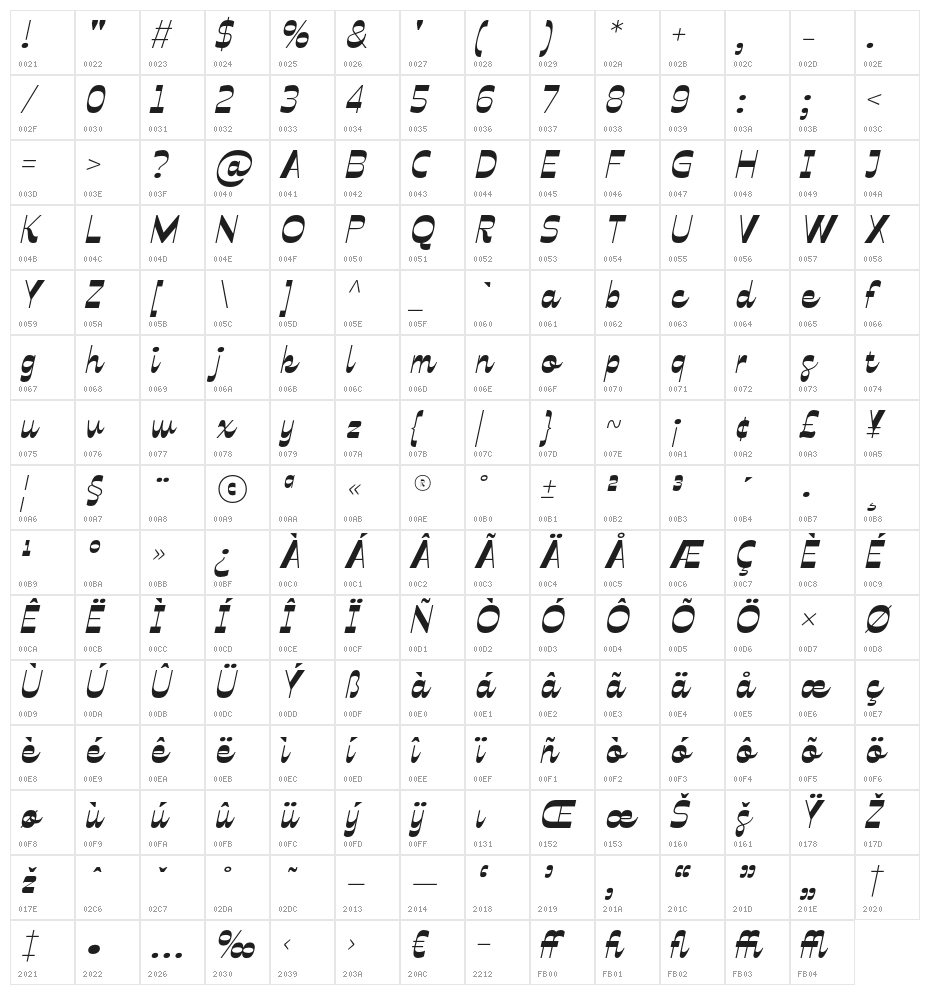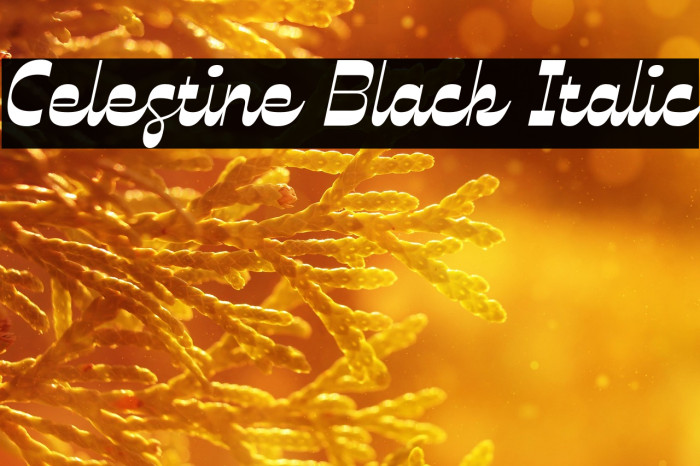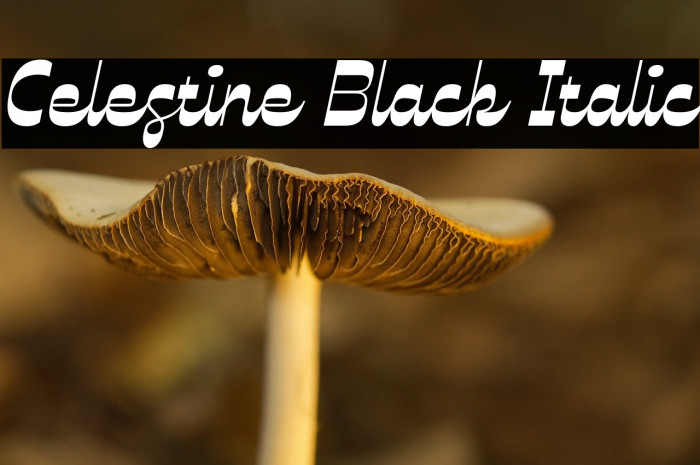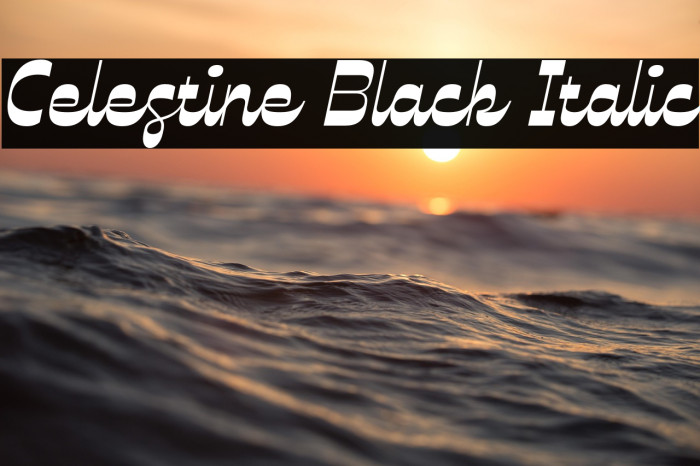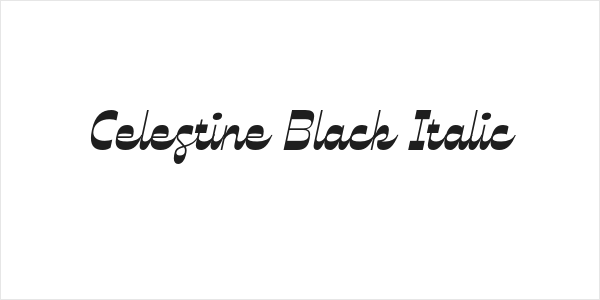
Celestine Black Italic Font
Celestine Black Italic Description
This font exhibits a bold and dynamic style with a pronounced italic slant, giving it a sense of movement and energy. The characters are thick and robust, with a high contrast between the thick and thin strokes, enhancing its bold appearance. The uppercase letters are tall and commanding, while the lowercase letters maintain a consistent flow with smooth curves and rounded edges. The numerals are equally bold, ensuring visibility and impact. Special characters are designed with the same boldness, making them stand out effectively. This font is ideal for making a strong visual statement.
Proposed ProjectsIdeal for branding, advertising, headlines, and any project requiring a strong, impactful typeface.